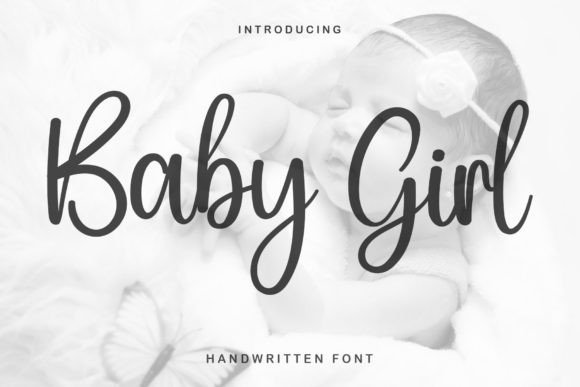
Introducing the Sweetest Addition to Your Design Arsenal
As a designer, there’s nothing quite like that moment when a project comes together, and you see your vision take shape. The feeling of satisfaction is indescribable, and it’s often the result of a well-chosen font. Speaking of which, have you ever stumbled upon a font that immediately transports you to a world of elegance and sophistication?
That’s exactly what the Baby Girl Font does. This trendy handwritten font is inspired by timeless classic calligraphy, making it the perfect addition to any design project. With its contemporary atmosphere and impeccable form, Baby Girl Font adds a touch of class and refinement to your work. Whether you’re a seasoned designer or just starting out, this font is sure to become a valuable asset in your creative toolbox.
Baby Girl Font Key Features
- Font Style: Cursive Script Font
- Unique Characteristics: Whimsical and playful design, perfect for baby-related projects and designs
Baby Girl Font Review
Overall, I have mixed feelings about the Baby Girl Font. While it has some charming qualities, it also has some limitations that may make it less suitable for certain projects.
- The font has a lovely, whimsical feel that is perfect for baby-related designs.
- The script font style adds a touch of elegance and sophistication.
- The font is highly customizable, with a wide range of font sizes, colors, and styles available.
- The font may be too cursive for some projects, making it difficult to read at smaller font sizes.
- The font lacks a bold or condensed version, which may limit its use in headlines or titles.
- The font may not be suitable for corporate or formal designs, as it has a more playful and feminine feel.
Overall, I think the Baby Girl Font is a great choice for projects that require a sweet, whimsical touch. However, it may not be the best choice for more formal or professional designs. With some careful customization and consideration, this font can add a lovely touch to any project.
Tips for Getting the Most Out of Baby Girl Font
Here are some tips to help you get the most out of Baby Girl Font:
1. Use the font in combination with pastel colors and floral patterns to create a soft and feminine look.
2. Experiment with different font sizes and styles to add visual interest to your design.
3. Use the font to create custom graphics and illustrations that match your brand or theme.
Here are some common use cases for Baby Girl Font:
1. Baby shower invitations and decorations
2. Nursery wall art and decor
3. Custom baby blankets and onesies
4. Baby-themed party decorations and favors